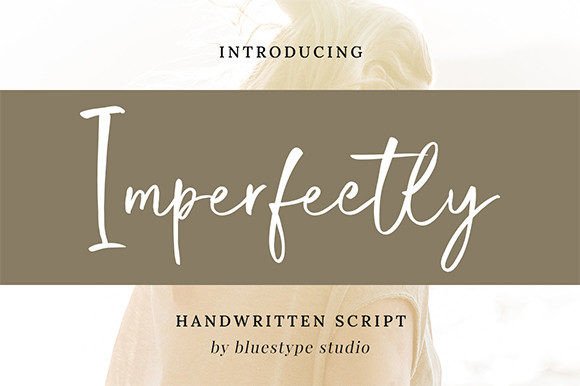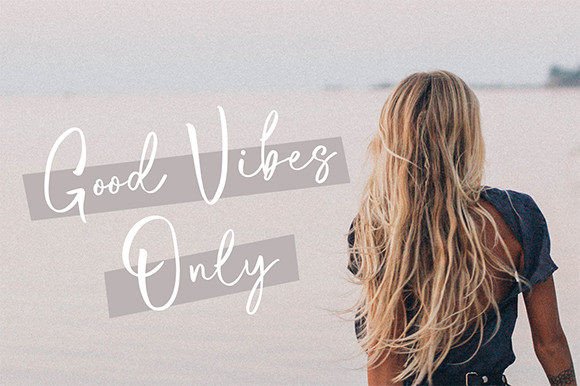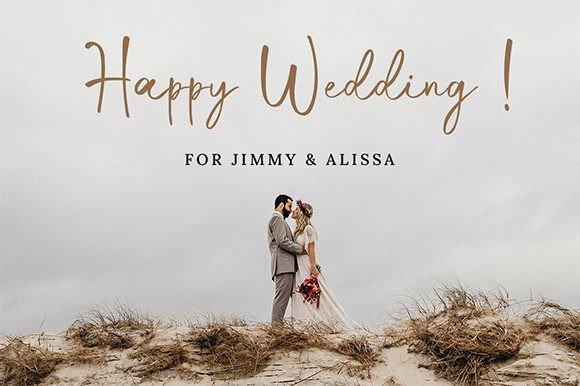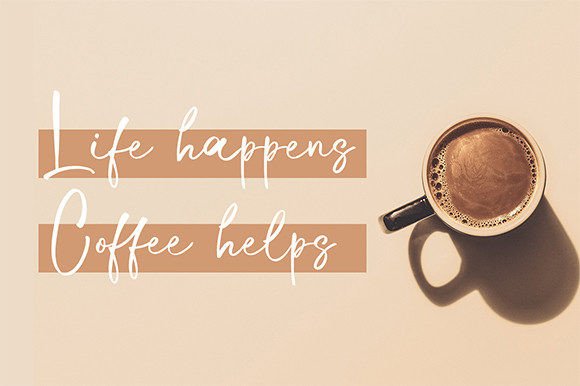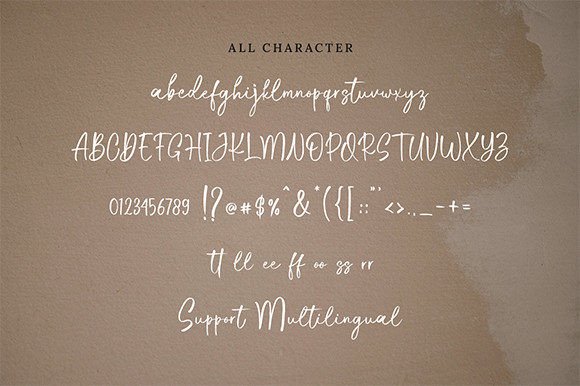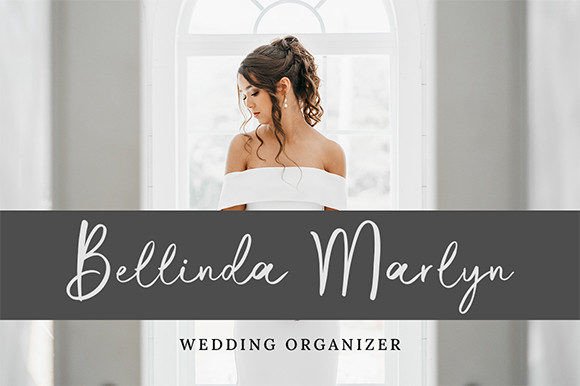
Imperfectly Font
A Stunning Handwriting Script with a Cool Twist
Imperfectly is a beautiful handwriting font that combines light, airy strokes with a modern aesthetic. Each letter has an organic, relaxed flow that feels natural and stylish. The font’s slightly imperfect shapes add character and make every design feel authentic and personal.
Its fresh, contemporary look makes Imperfectly perfect for both casual and professional projects. Whether you’re designing for fashion, weddings, or digital content, this font adds a polished, creative touch.
Imperfectly is a versatile font that adapts effortlessly to all types of design. Use it for fashion branding, lookbooks, and magazine spreads where style and elegance matter.
It works beautifully on wedding invitations, save-the-date cards, and event signage. The handwritten feel adds warmth and a personal touch to every word.
This font is also a great choice for business cards, logos, and product packaging. Its relaxed flow makes your branding feel approachable and modern.
Imperfectly shines on social media graphics, blog headers, and quotes. No matter the project, the font’s clean strokes and stylish vibe will help your message stand out.
The set includes uppercase and lowercase letters, numbers, and punctuation marks. Ligatures help your text flow smoothly and look custom-crafted.
Even with its handwritten style, Imperfectly remains clear and easy to read at any size. The balanced spacing keeps your text organized, whether you’re working on big headlines or smaller labels.
Designers often pair Imperfectly with a simple sans-serif font for contrast. Use Imperfectly for titles and the sans-serif for supporting text. This combination helps guide the reader’s eye and keeps layouts fresh and clean.
To showcase Imperfectly’s modern charm, use soft backgrounds and neutral color palettes. Tones like beige, blush, and light gray allow the smooth letterforms to stand out without distraction.
When designing wedding materials or branding, consider adding watercolor accents or delicate illustrations. These details highlight the font’s relaxed, elegant style. For social media posts, keep your layout minimal so the typography is the main focus.
Think about the feeling you want to share. Imperfectly is perfect for designs that should feel creative, warm, and stylish.
Imperfectly is more than just a handwriting font. It’s a design tool that transforms simple words into something special. Its clean shapes and effortless flow bring beauty and personality to any project.
Adding Imperfectly to your font collection gives you a reliable option for all types of creative work. From fashion lookbooks and branding to wedding invitations and social media graphics, this font adapts easily to your ideas.